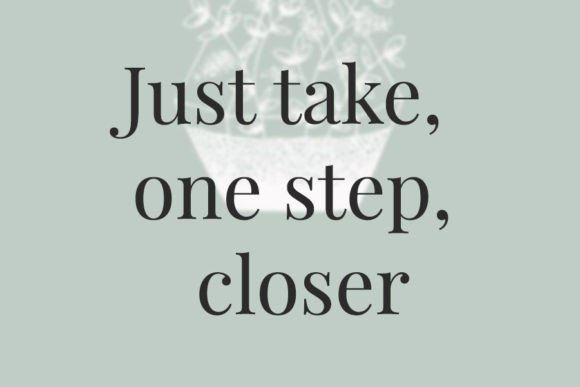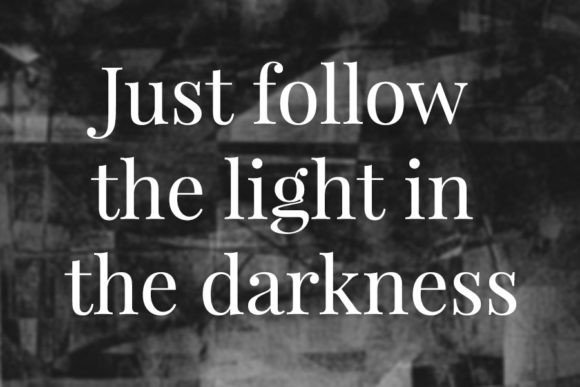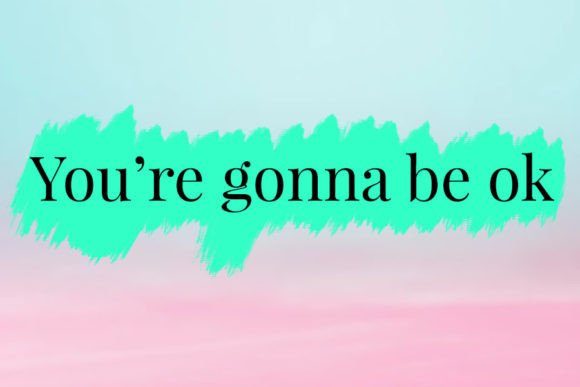
Droplits Font: Elevate Your Designs with Sophistication
In the world of typography, fonts play a crucial role in conveying the tone and personality of a brand. For designers and crafters seeking to create luxurious and high-end branding designs, the right font can make all the difference. This is where Droplits Font comes into play – a sleek, modern serif font that offers sophistication with its refined lines and curves.
What is Droplits Font?
Droplits Font is a contemporary serif font designed to bring a touch of elegance and refinement to any design project. Its sleek lines, precise curves, and balanced proportions make it an ideal choice for creating luxurious and high-end branding designs. Whether you’re working on a logo, packaging, or marketing materials, Droplits Font is sure to elevate your designs to the next level.
Key Features of Droplits Font
- Sleek and Modern Design: Droplits Font boasts a sleek and modern design that is perfect for creating contemporary branding designs.
- Refined Lines and Curves: The font’s refined lines and curves add a touch of sophistication and elegance to any design.
- Serif Details: The subtle serif details in Droplits Font provide a sense of tradition and luxury, making it ideal for high-end branding designs.
- Balanced Proportions: The font’s balanced proportions ensure that it is clear and readable, even at smaller sizes.
Why Choose Droplits Font?
There are many reasons why designers and crafters should consider using Droplits Font in their projects. Here are a few:
- Instantly Elevate Your Designs: With Droplits Font, you can instantly elevate your designs and give them a luxurious feel.
- Versatile: The font is versatile and can be used in a variety of design projects, from logos and packaging to marketing materials and websites.
- Easy to Read: Despite its sleek and modern design, Droplits Font is easy to read, even at smaller sizes.
- Unique and Memorable: The font’s unique design ensures that your branding designs will stand out and be remembered.
How to Use Droplits Font
Using Droplits Font in your design projects is easy. Here are a few tips to get you started:
- Pair it with Other Fonts: Droplits Font pairs well with other fonts, so feel free to experiment with different combinations to create a unique look.
- Use it for Headings and Titles: The font is ideal for headings and titles, where its sleek and modern design can really shine.
- Experiment with Colors: Droplits Font looks great in a variety of colors, so don’t be afraid to experiment and find the perfect color scheme for your design.
In conclusion, Droplits Font is a sleek, modern serif font that offers sophistication and elegance with its refined lines and curves. Its versatility, readability, and unique design make it an ideal choice for luxurious and high-end branding designs. Whether you’re a designer or crafter, Droplits Font is sure to elevate your designs to the next level. So why wait? Download Droplits Font today and start creating stunning branding designs that will leave a lasting impression.
- What type of font is Droplits Font? Droplits Font is a modern serif font.
- Is Droplits Font suitable for body text? While Droplits Font is primarily designed for headings and titles, it can also be used for body text in certain design projects.